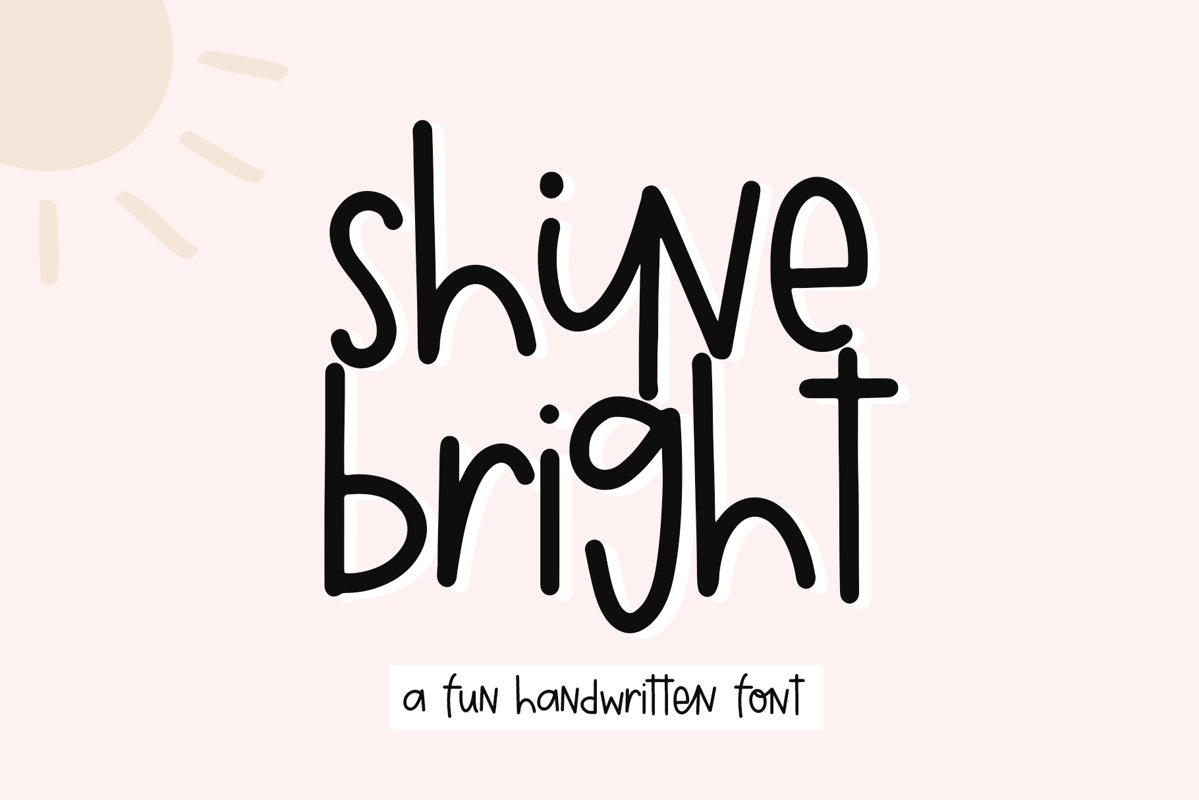
Shine Bright - A Quirky Handwritten Font
Shine Bright is a quirky handwritten font!
This font is perfect for quotes, shirt designs, websites, branding, children's designs, svg designs, blogs, logos, invitations and more!